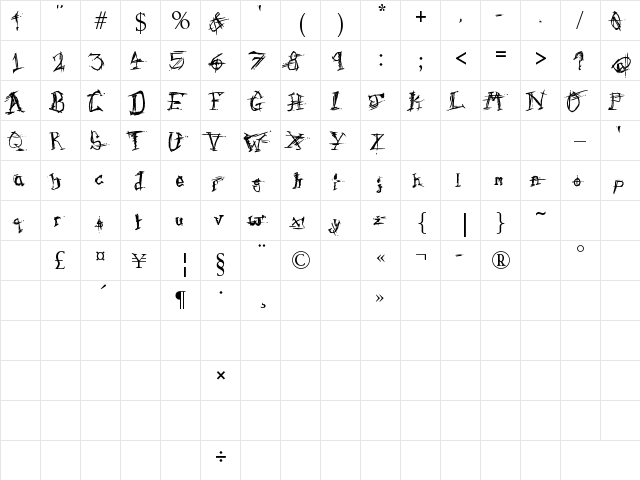
F'Donkulous Regular
Design Context for F'Donkulous Typeface
F'Donkulous is a composed and adaptable typeface that performs quietly and consistently across a wide range of design contexts.